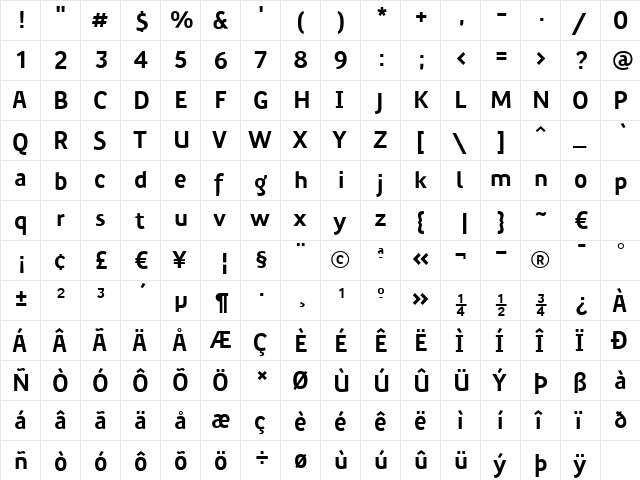
PreciousSansBold Regular
Design Context for PreciousSansBold Typeface
PreciousSansBold offers clean, dependable letterforms without strong stylistic allegiance, making it a practical choice for designers who need flexibility. Its bold stroke weight gives it real presence on the page.
Pro Tip: Use PreciousSansBold in both headline and body roles to test its range before committing to a single application.